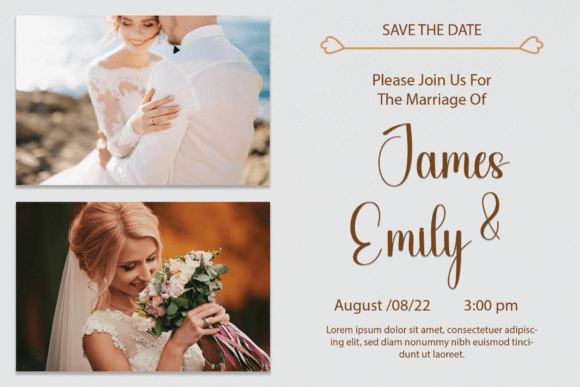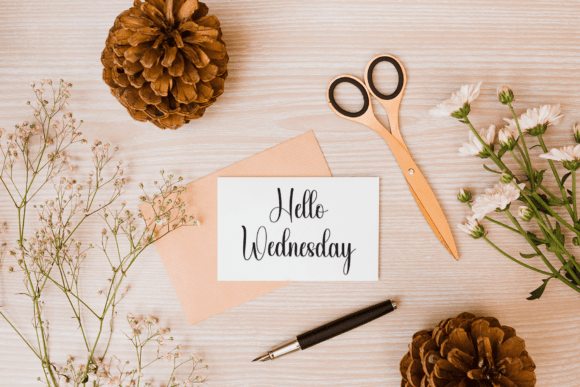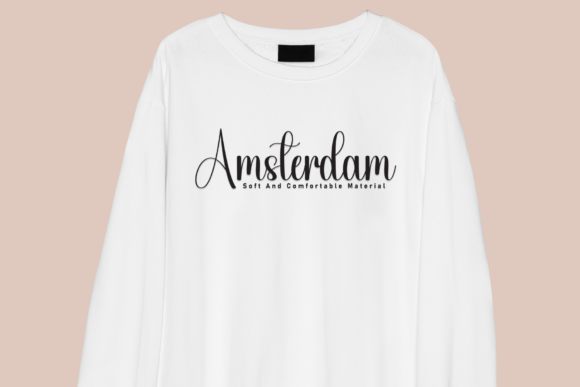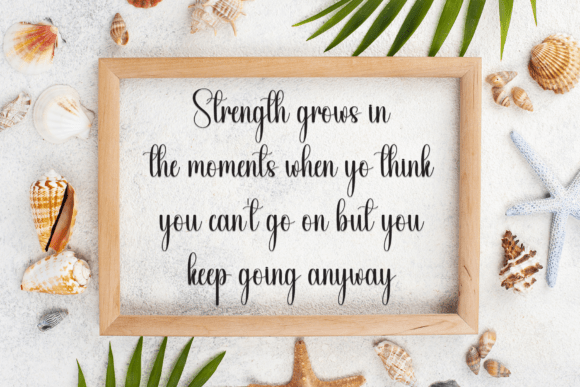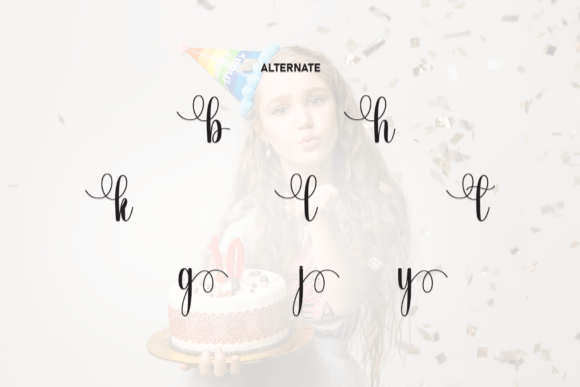
The Ultimate Celebration: Introducing the Birthday Font
Imagine you’re working on a project, and your client asks for a font that’s as festive as a birthday party, yet as elegant as a luxury brand. You’ve scoured the internet, but nothing seems quite right. That’s when I discovered the Birthday Font, a beautiful, brand-new script handwritten typeface that captures the essence of celebration and sophistication.
A Personal Design Moment: Finding the Perfect Font
I recall working on a wedding stationery project, and the client wanted a font that was both playful and luxurious. I spent hours searching for the perfect match, but every font seemed to fall short. That’s when I stumbled upon the Birthday Font, and it was love at first sight! ✨ The elegant swashes, the delicate letterforms, and the whimsical feel all came together to create a font that exceeded my client’s expectations.
- 💫 Elegant, flourishing swashes that add a touch of sophistication to any design
- ✅ Delicate, handwritten letterforms that evoke a sense of whimsy and playfulness
- 🎉 Perfect for luxury branding, personalized wedding stationery, and heartfelt greeting cards
- 📸 Works beautifully for social media graphics that demand attention
The Not-So-Good: ⚠️
- 🤔 Can be a bit challenging to read at smaller font sizes due to the intricate swashes
- ⚠️ Limited availability of certain characters, such as ligatures and stylistic alternates
The Designer Inspiration: A Story of Creativity and Passion
The Birthday Font was created by a talented designer who wanted to capture the essence of celebration and joy. Inspired by the beauty of handwritten scripts and the elegance of luxury branding, the designer poured their heart and soul into creating a font that’s both playful and sophisticated.
| Font Name | Birthday Font |
Q: What makes the Birthday Font so special?
A: The Birthday Font is special because of its elegant, flourishing swashes and delicate, handwritten letterforms that evoke a sense of whimsy and playfulness.
Q: Is the Birthday Font suitable for body text?
A: While the Birthday Font is beautiful, it’s best suited for headlines, titles, and short paragraphs due to its intricate swashes and delicate letterforms.